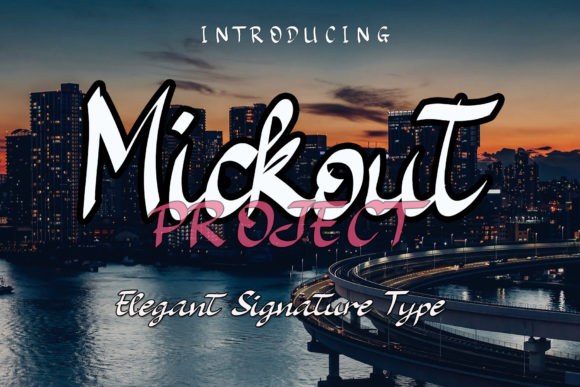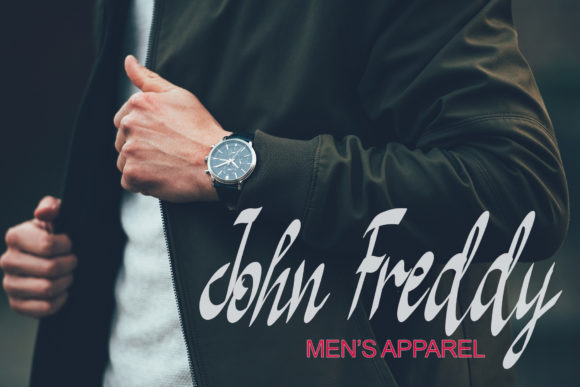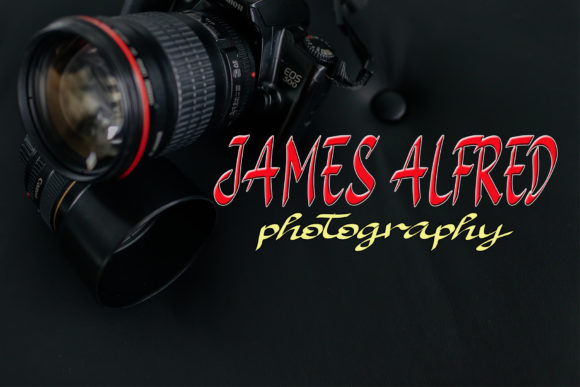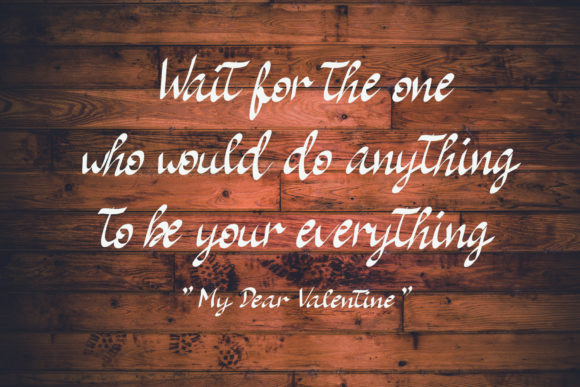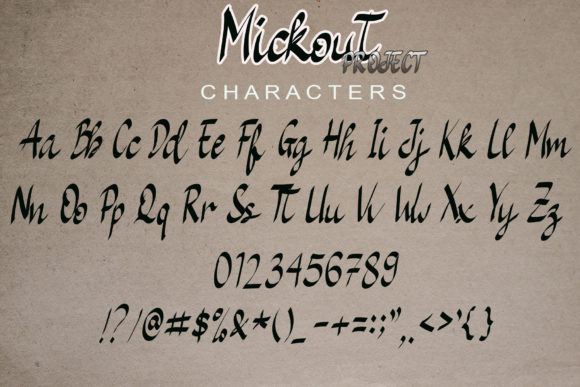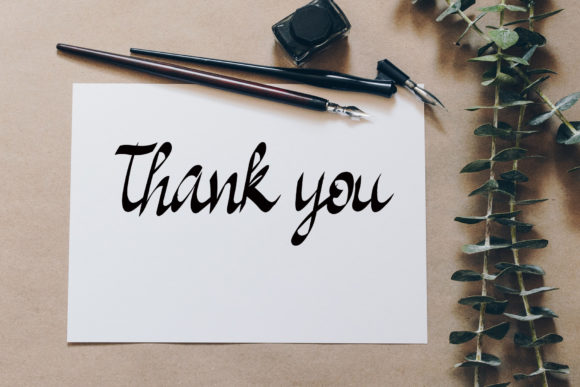
Mickout Project Font
About Mickout Project Font
Mickout Project is a lovely and delicate script font that exudes elegance and class. This font was particularly crafted for those who need a beautiful and refreshing look to their designs.